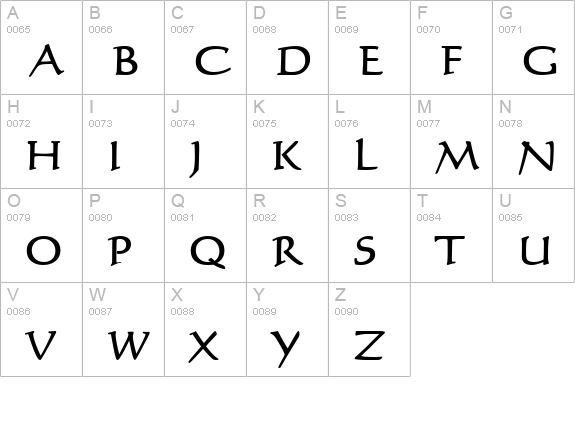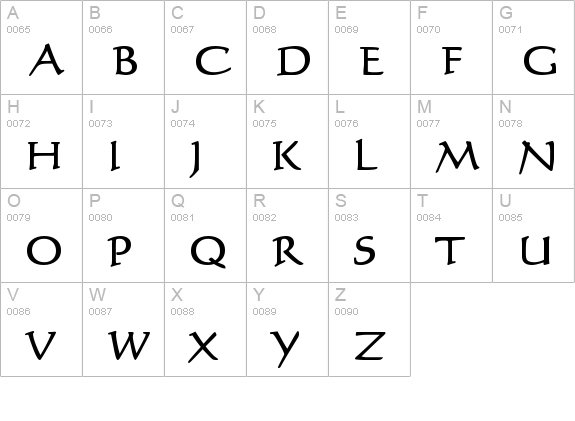
Calli 109 Bold is a strong, high-contrast variant in the Calli typeface family \xE2\x80\x94 well suited to headlines, attention-grabbing titles, and strong calls-to-action.
Calli 109 Bold font is a stunning display typeface that exudes elegance and sophistication. With its bold and distinct design, this font is perfect for making a statement in your projects. Whether you are creating a poster, logo, or any other design work, Calli 109 Bold will add a touch of modern flair. The best part is that Calli 109 Bold font is completely free to download at FontsMarket.com. This means you can elevate your designs without breaking the bank. Don't miss out on this amazing opportunity to enhance your creations with the timeless beauty of Calli 109 Bold font. Download it now and let your creativity shine!